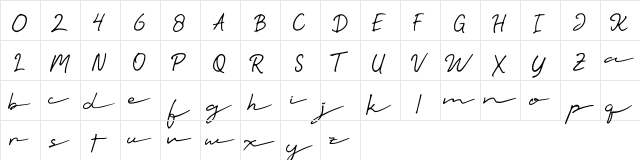
Talesian Signature Regular
| Foundry | Viaction Type Co |
| Designer | Lukman Hidayat |
Design Context for Talesian Signature Typeface
Talesian Signature is a composed and adaptable typeface that performs quietly and consistently across a wide range of design contexts.